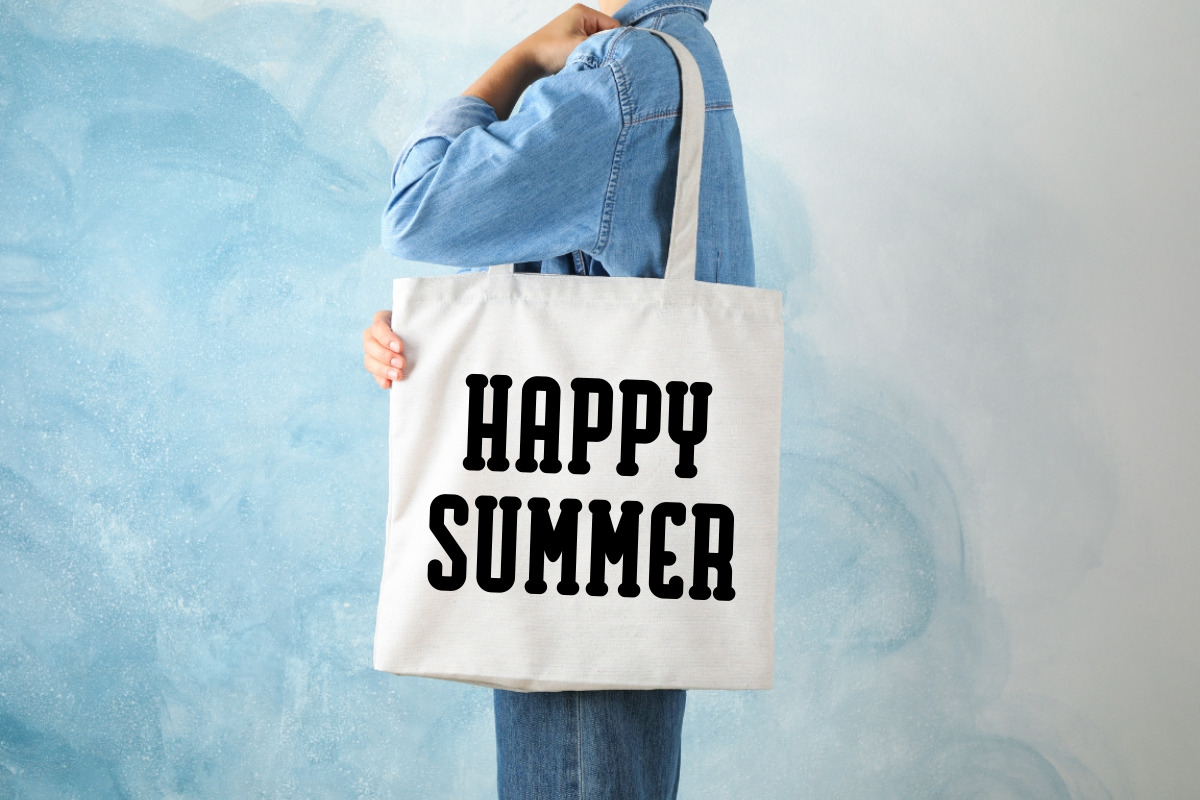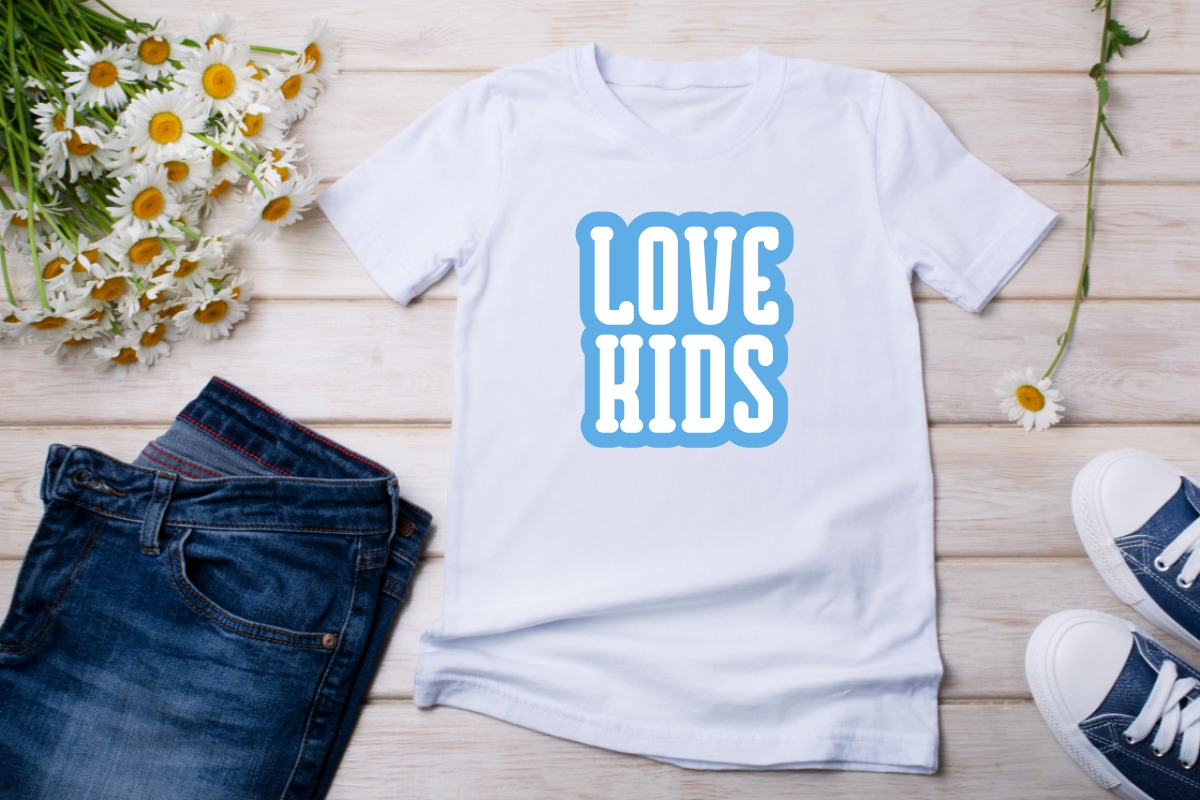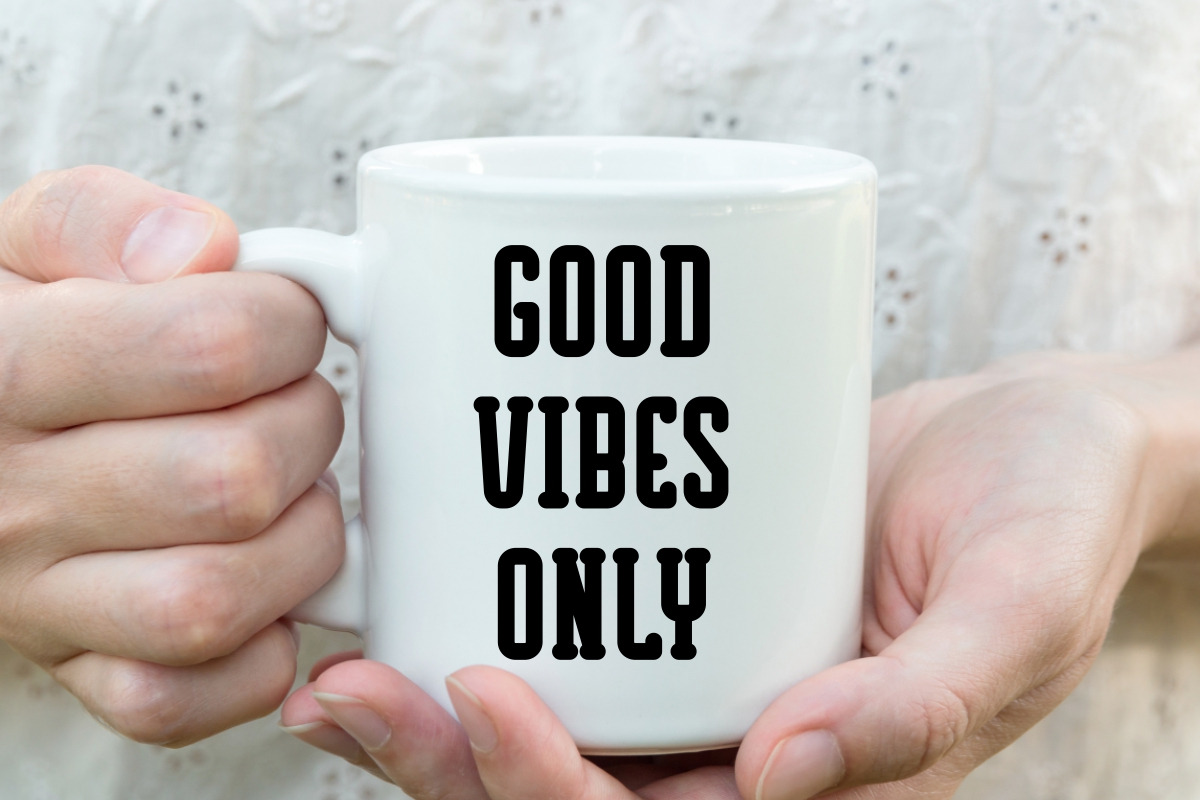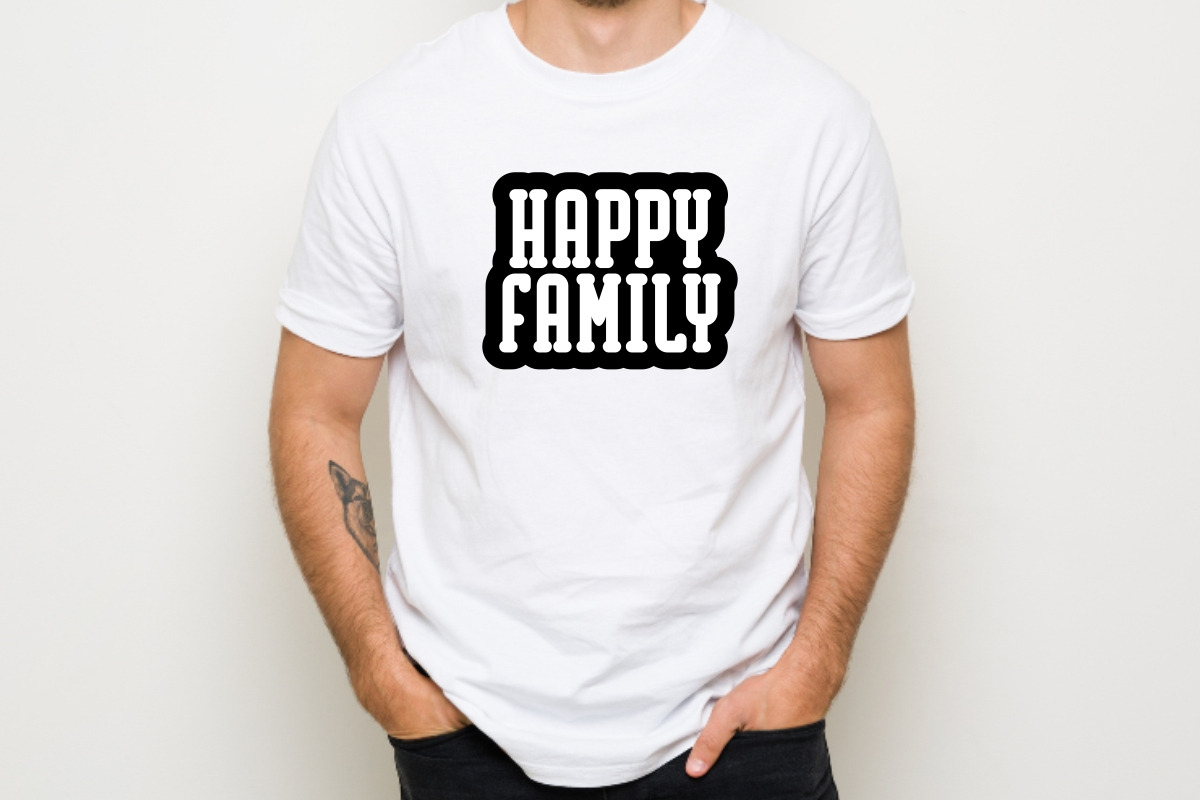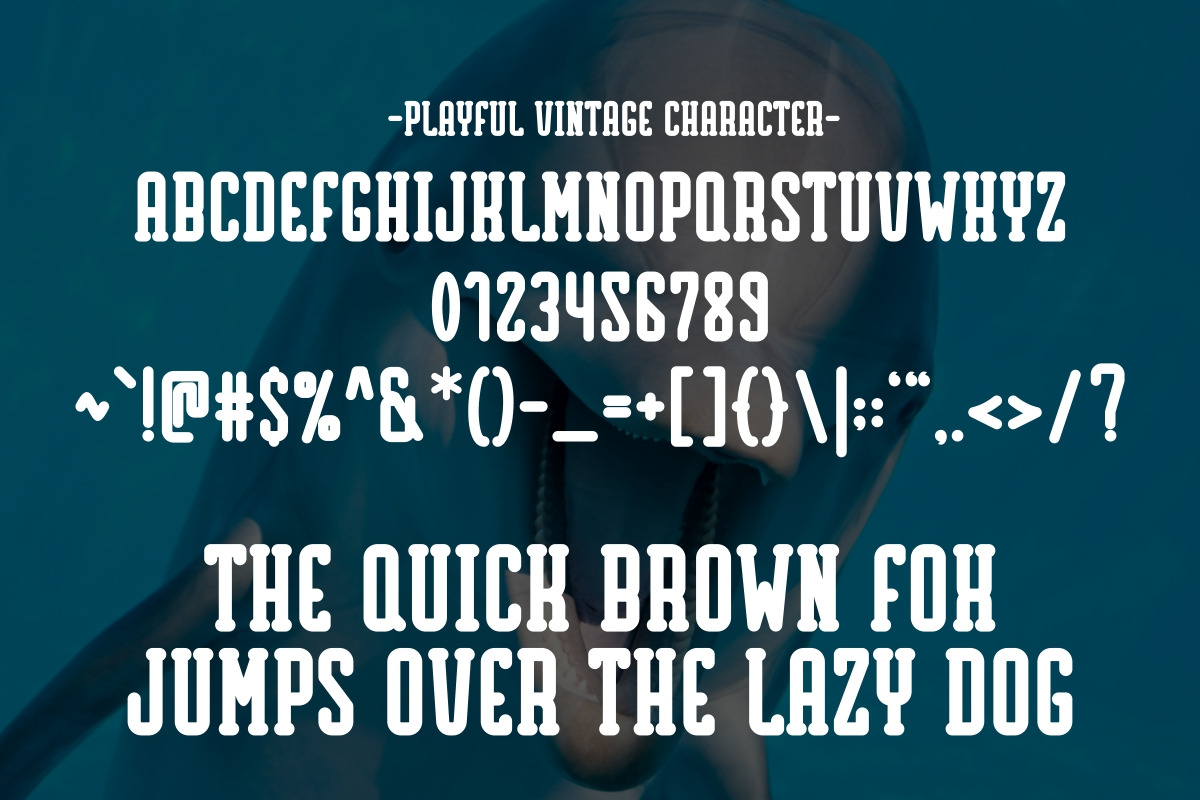
Playful Vintage - Cute Slab Serif
Playful Vintage is a cute slab serif font designed with a charming and whimsical style perfect for children. This font adds a touch of fun and joy to any creative projects. Perfect for quotes, posters, backgrounds, birthday greetings, t-shirts, mugs and tote bags.